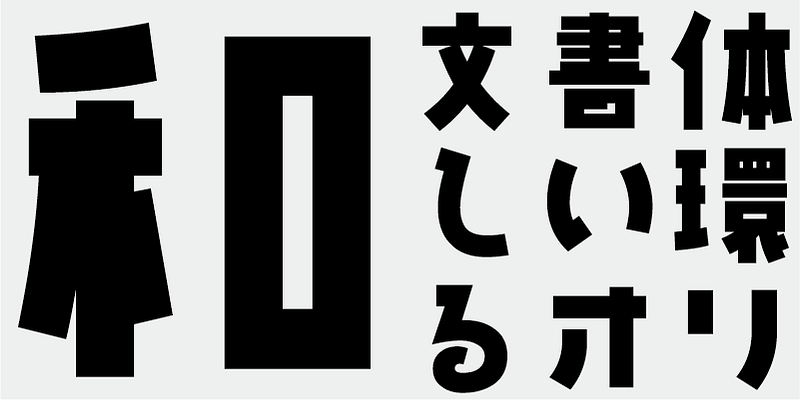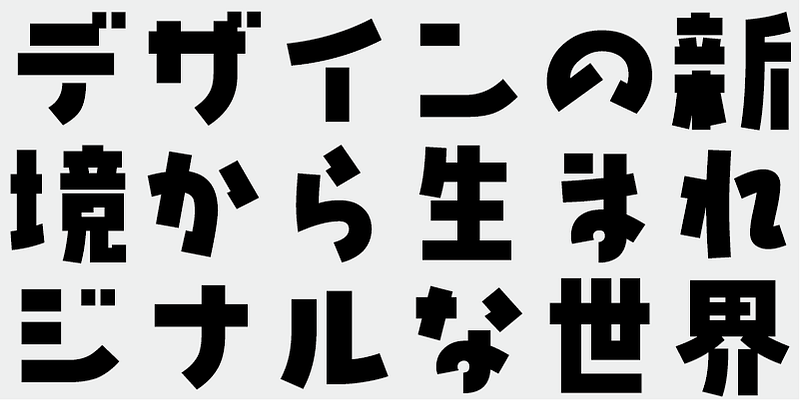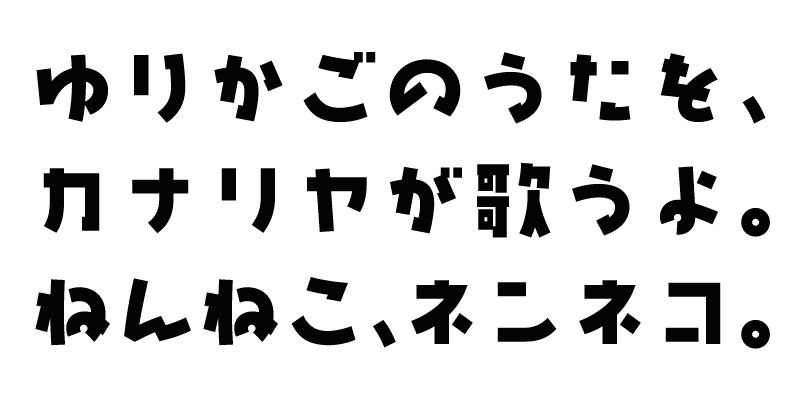
This typeface is a cute Japanese-style typeface with many linear stroke elements. It has a relaxed, informal design. Enjoy compositing the type effectively arranged spaces between characters.